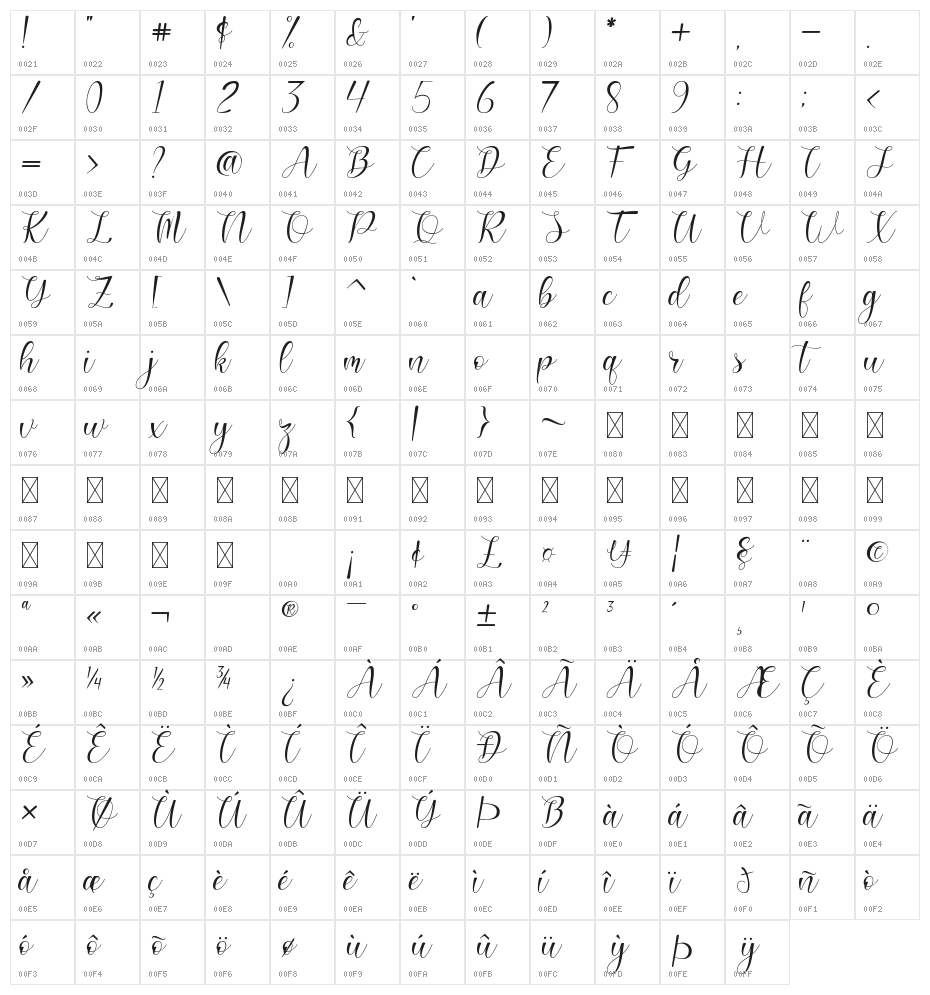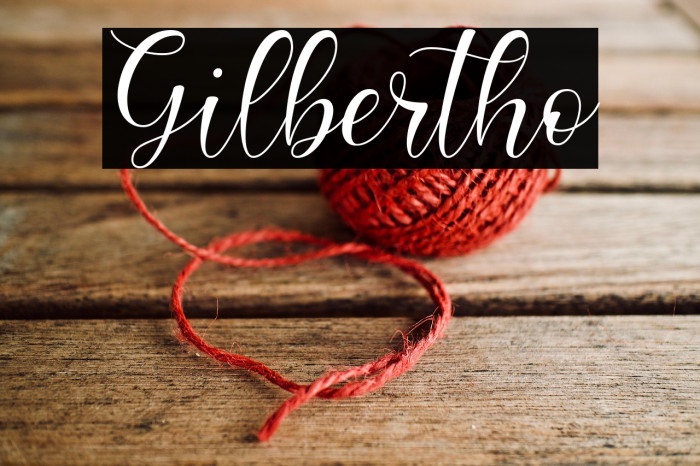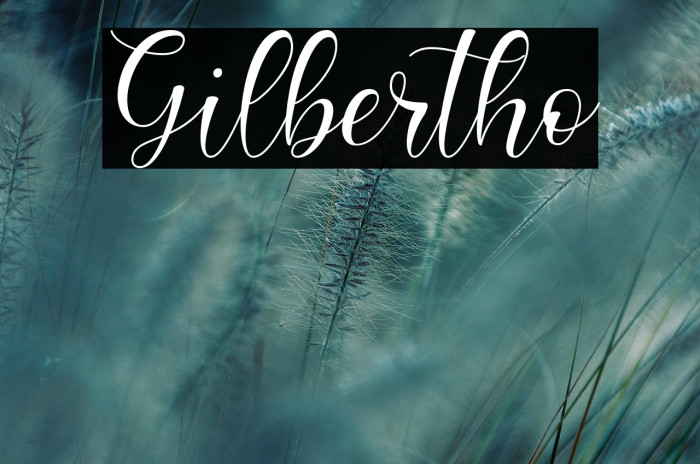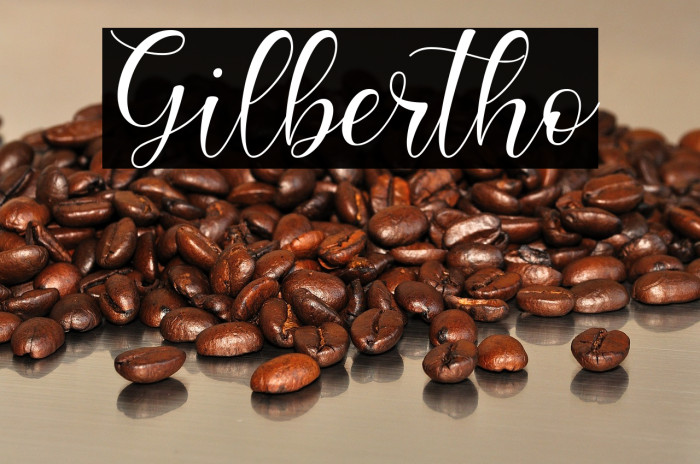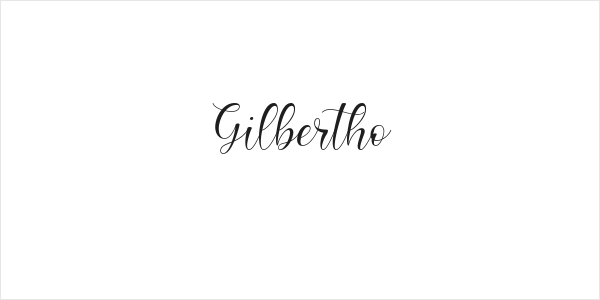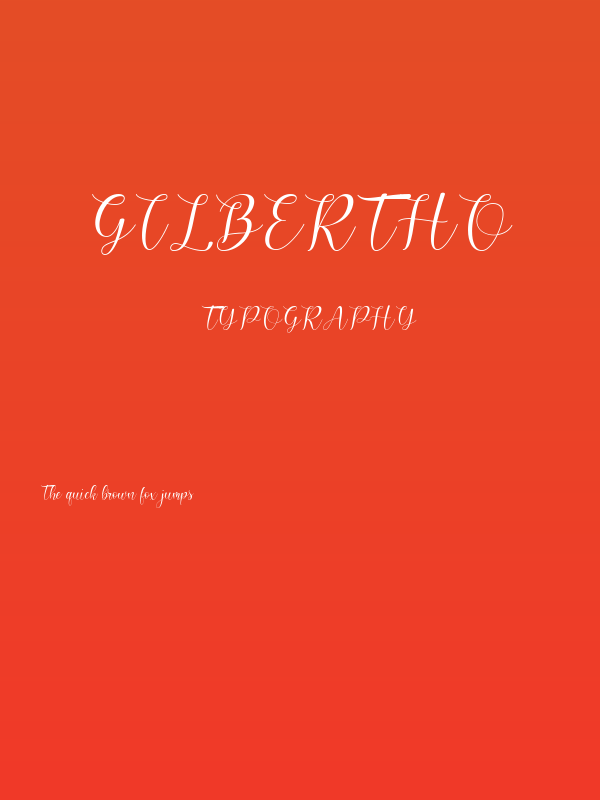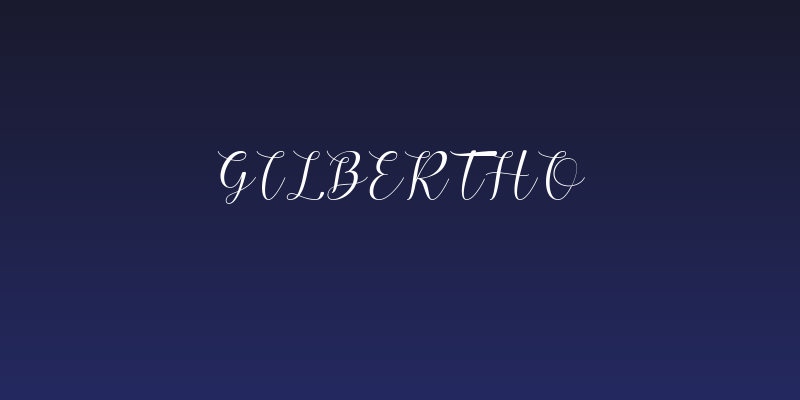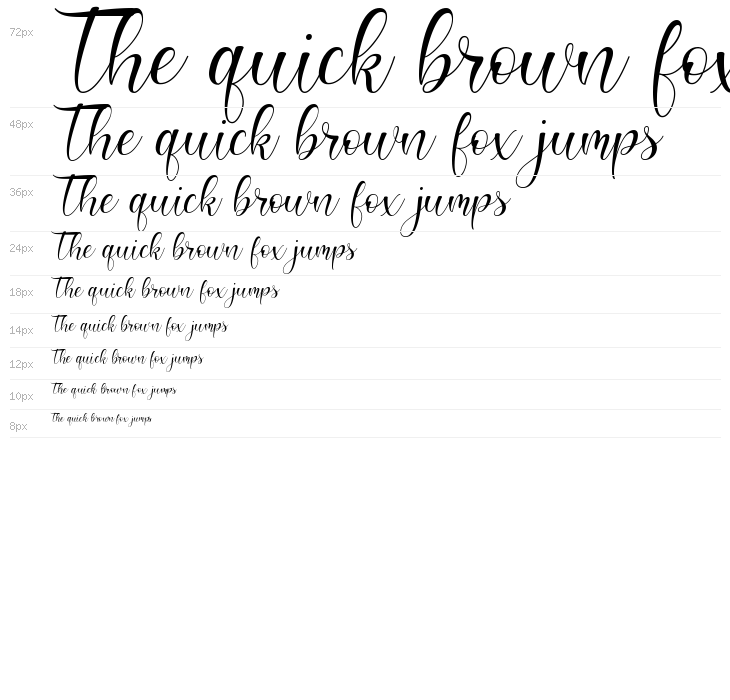
Gilbertho Font
Gilbertho Description
This font features an elegant and flowing script style, characterized by its smooth, cursive strokes and graceful curves. The uppercase letters exhibit a sophisticated flair with extended ascenders and descenders, creating a sense of movement and fluidity. The lowercase letters maintain a consistent flow, enhancing readability while preserving the decorative nature of the script. Numbers and special characters are designed to complement the overall aesthetic, with a harmonious balance between form and function. This font is ideal for projects that require a touch of elegance and sophistication.
Overall StyleElegant, Decorative
Use CaseHeadlines, Invitations, Branding
Proposed ProjectsWedding invitations, branding, greeting cards, and elegant packaging.